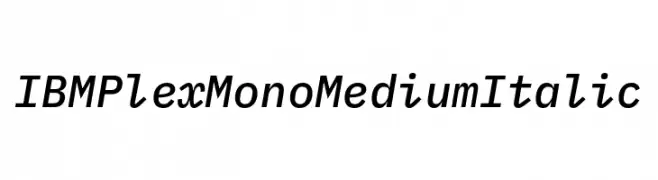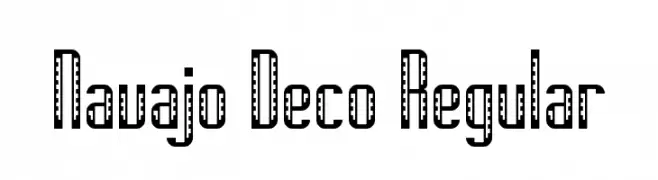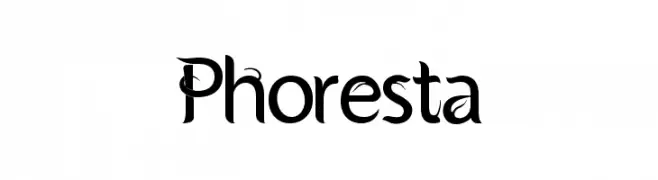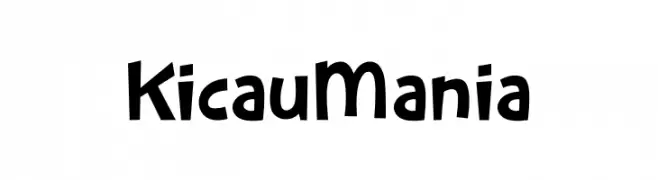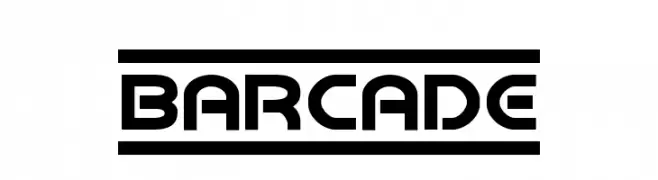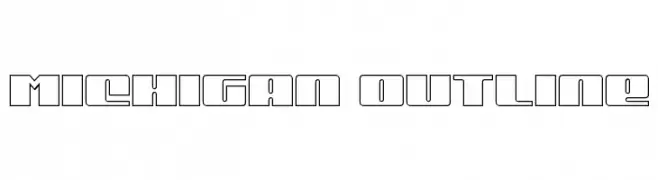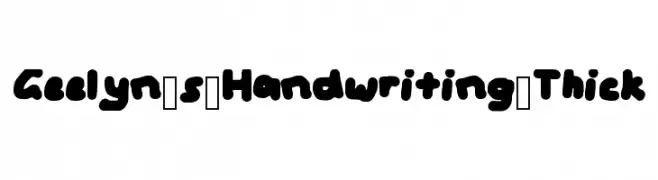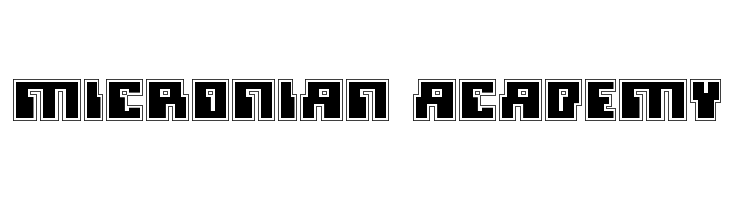
A playful, whimsical font with irregular, hand-drawn letterforms and a unique aesthetic.
A modern, monospaced italic font with medium weight and clean lines.
A bold, decorative font with geometric and art deco influences.
A bold, 3D-style font with sharp, angular edges and a dramatic appearance.
A playful and elegant serif font with calligraphic influences.
A playful and whimsical font with bold, irregular letterforms.
A futuristic, bold font with sharp angles and geometric shapes.